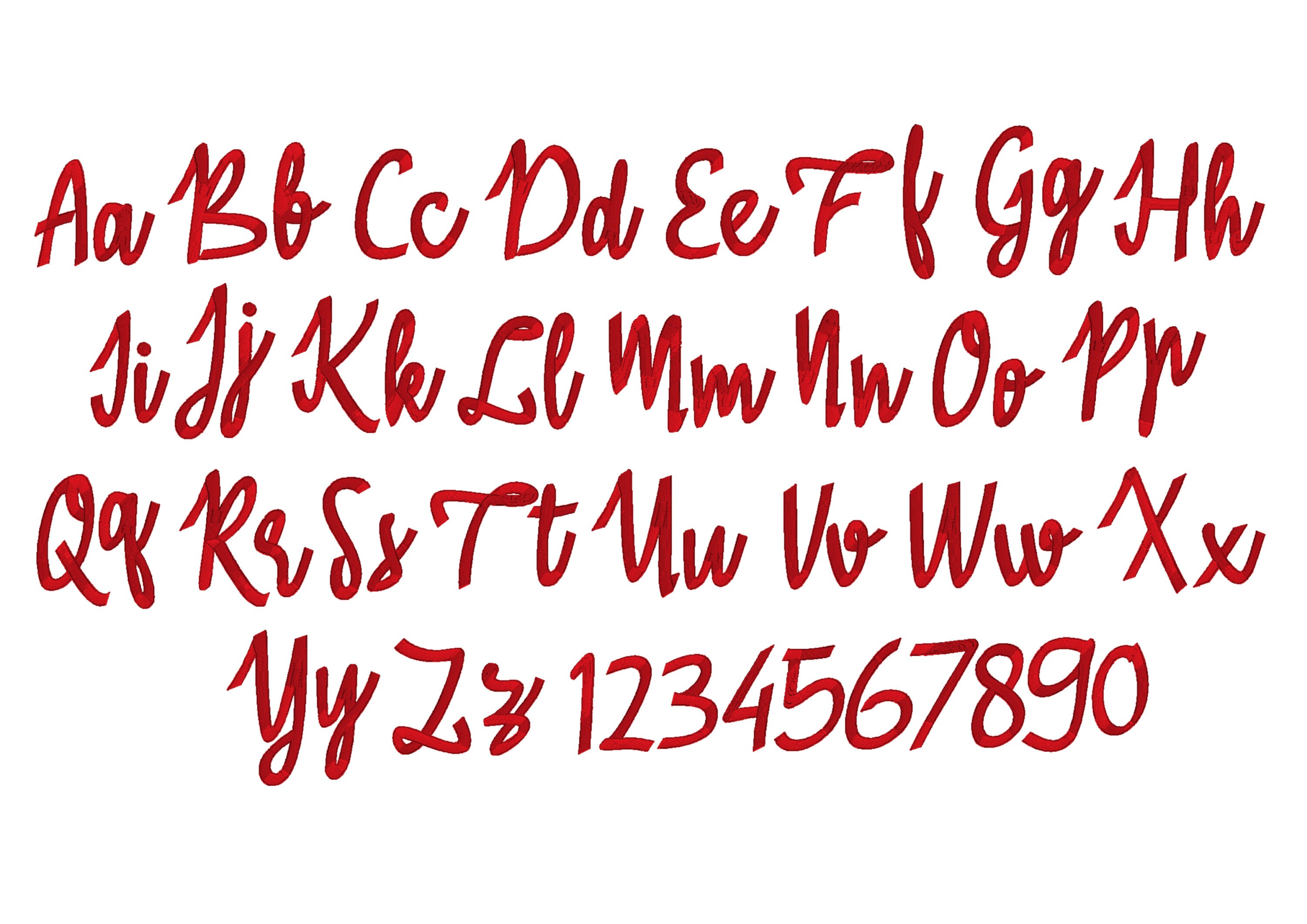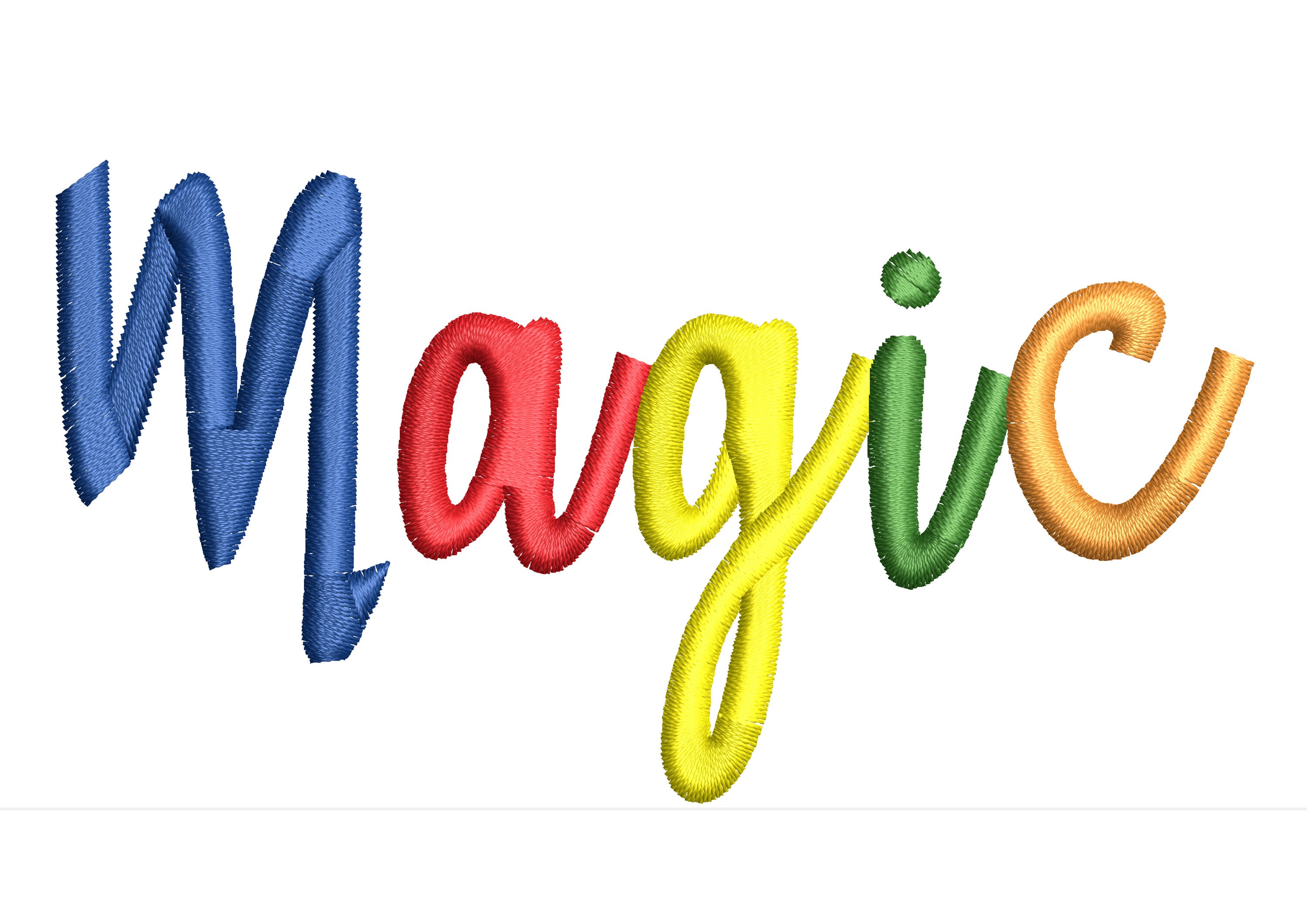
Modern rope nautical script hand written cursive Font alphabet machine embroidery designs 1.5, 2, 2.5, 3, 3.7 inches, monogram BX included
Uppercase and lowercase letters, numbers, punctuation